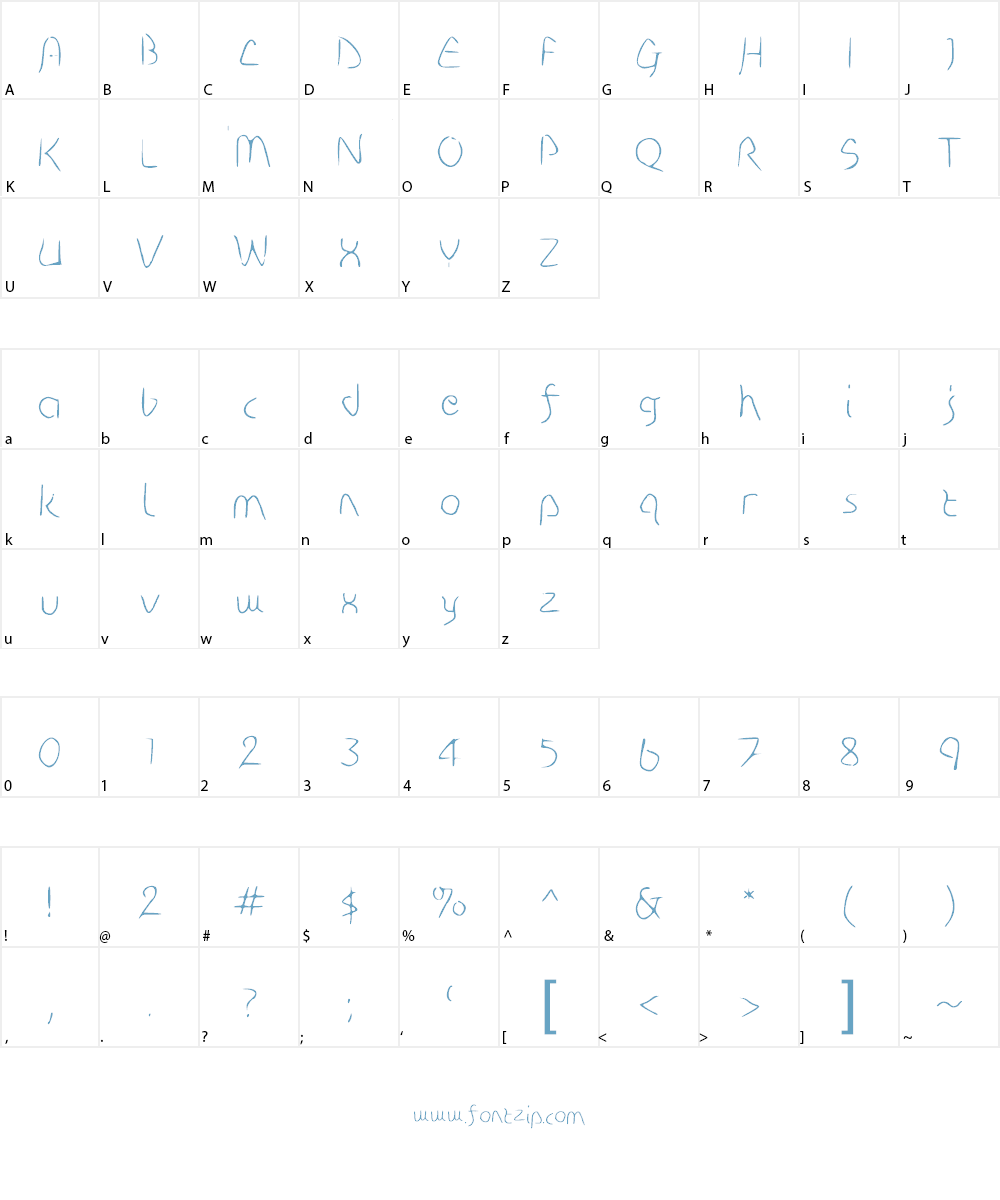
Named for two music genres that just didn't make it
in America. One had too much exposure, the other, not enough. It was inspired by the 1970's Disco fonts like Bahaus 93 and Blippo (I think) which I called "the Jefferson's font" because it was used for the credits (and just about everything else) for that tv sitcom.
Grunge was an alternative music (and like Disco a lifestyle) where the sky was the limit. It was more "rebel-like" but not quite "redneck". That's where the Grunge part came in.
It's basically Disco form and design done for the Grunge era. It was drawn in 1986 but never released to the public until now. The Disco-Grudge font family was created in 2013. A complete redraw of the original font, which was not officially named until this time. The Original had only 52 characters and was a single variety only. Punctuation was added later. The 2013 redraw resulted in 3 varieties, with 406 characters each. They were all digitized each as both .ttf for Windows and .otf for Apple. There's no registered trademark or Yen sign but most common symbols are there. (See pictures for what's included.
The varieties are lite (the freest of them all), rounded (Very liberal but more conservative on several characters, and of course "Stroked" for the calligraphy pen used in it's making for the final version. The Stroked is also the closest to the original design. Retro fanatics would probably love this font.